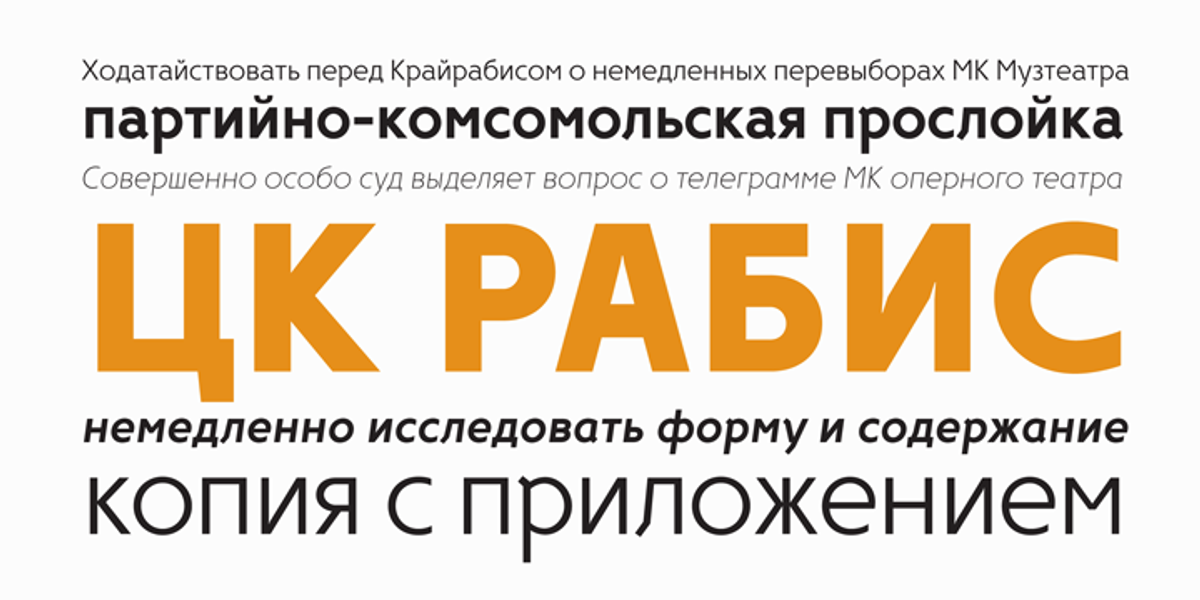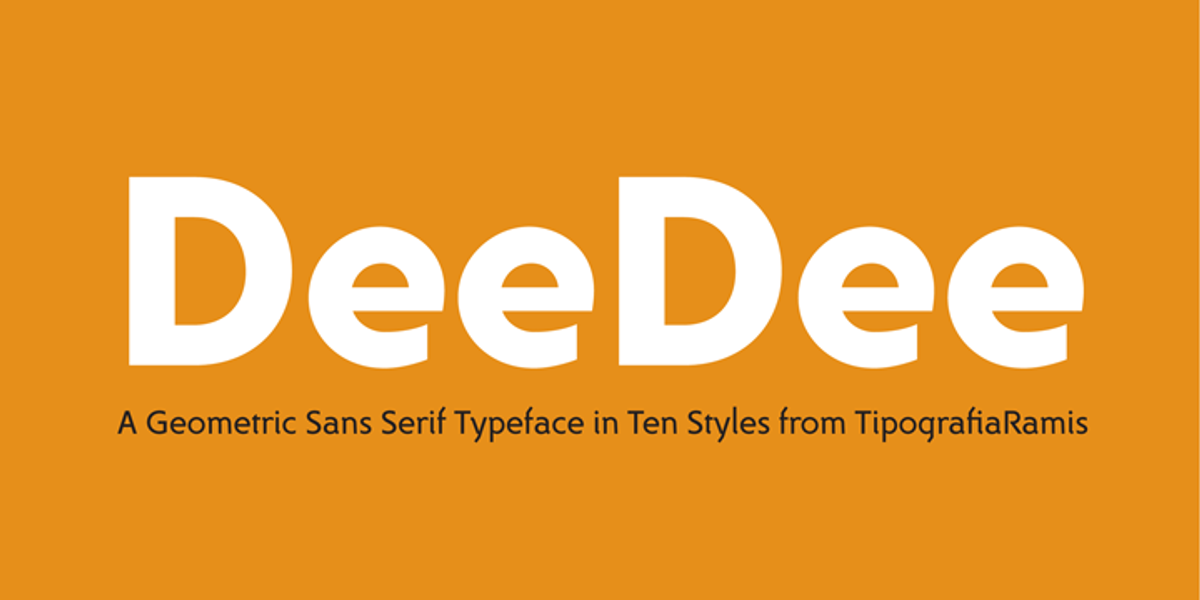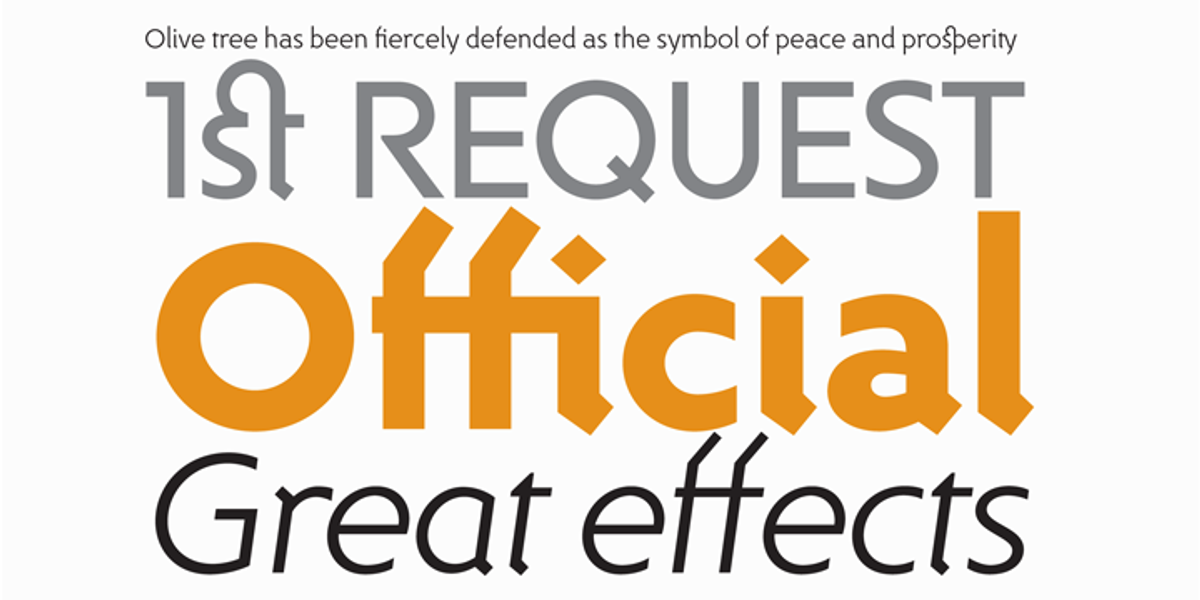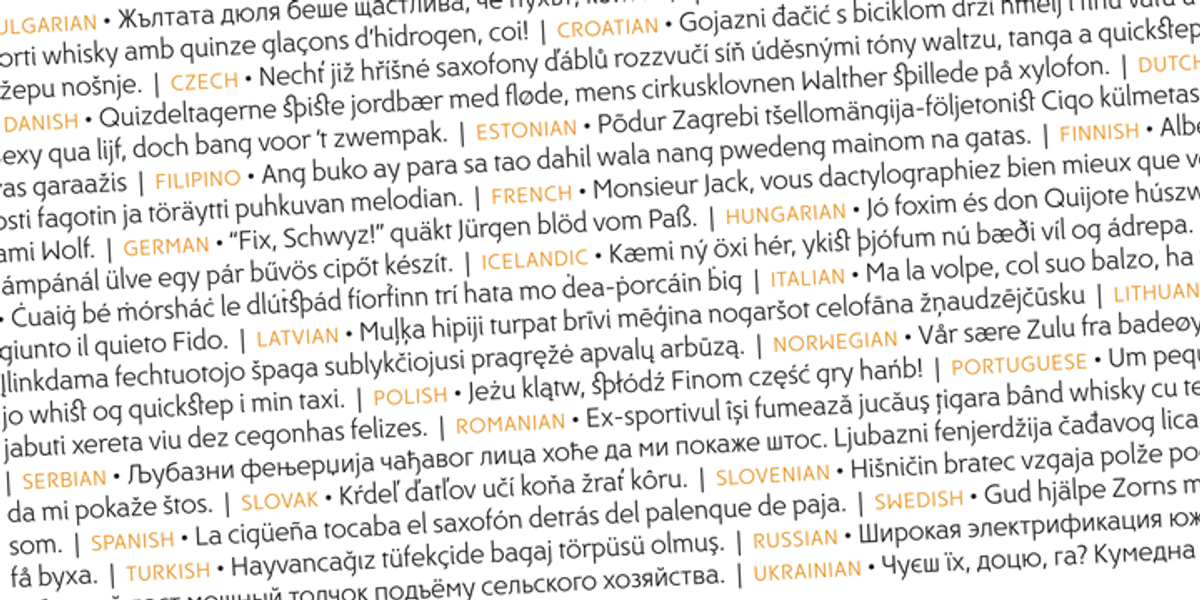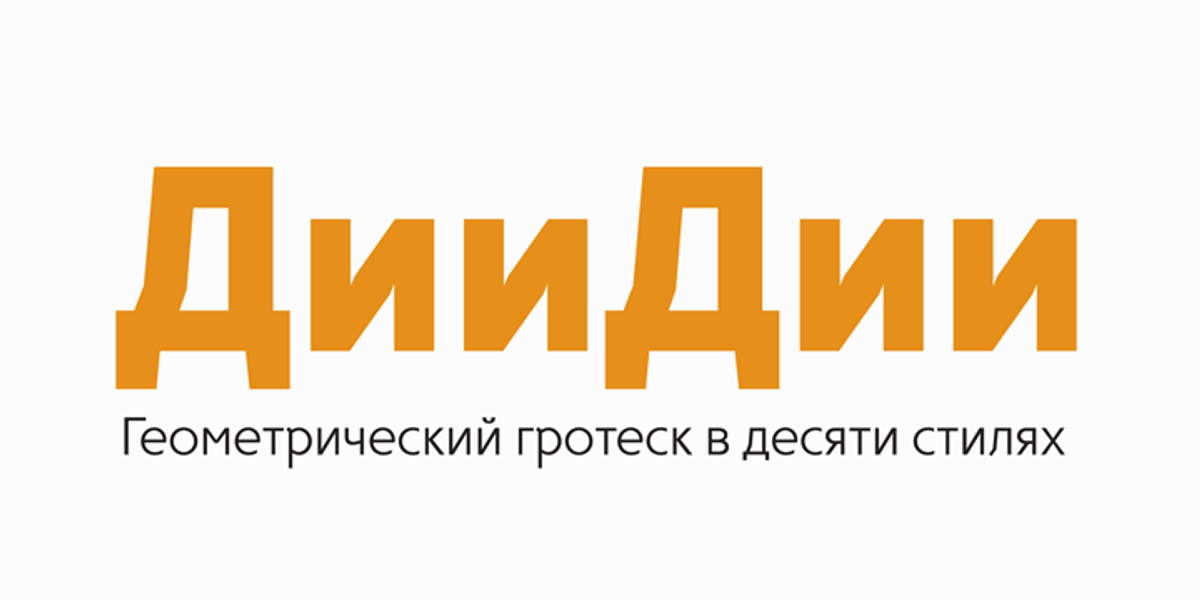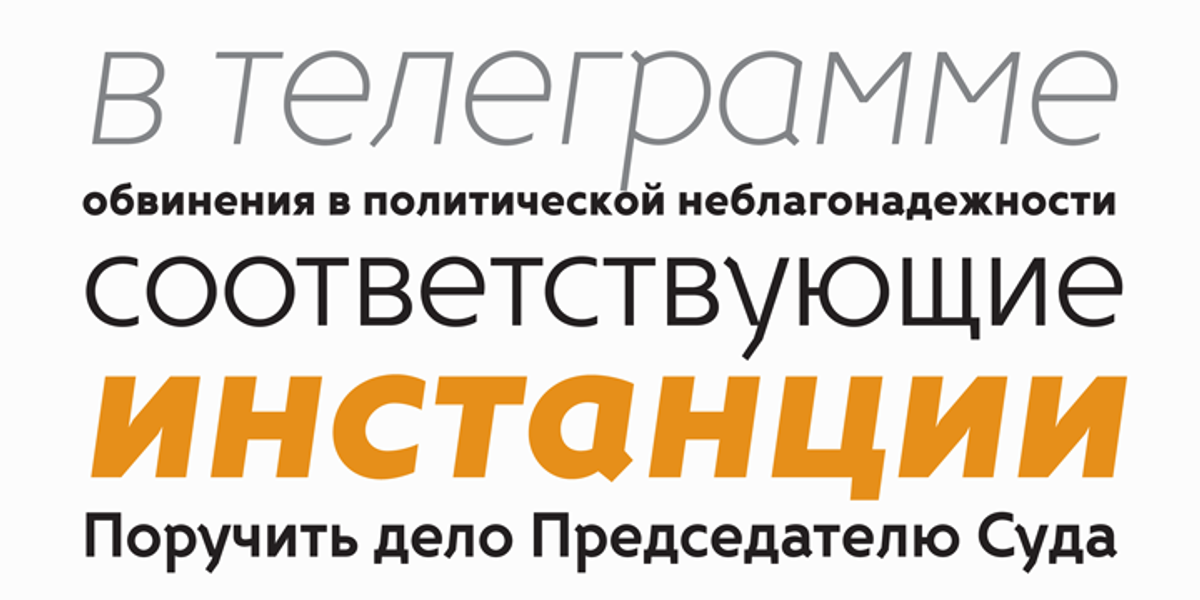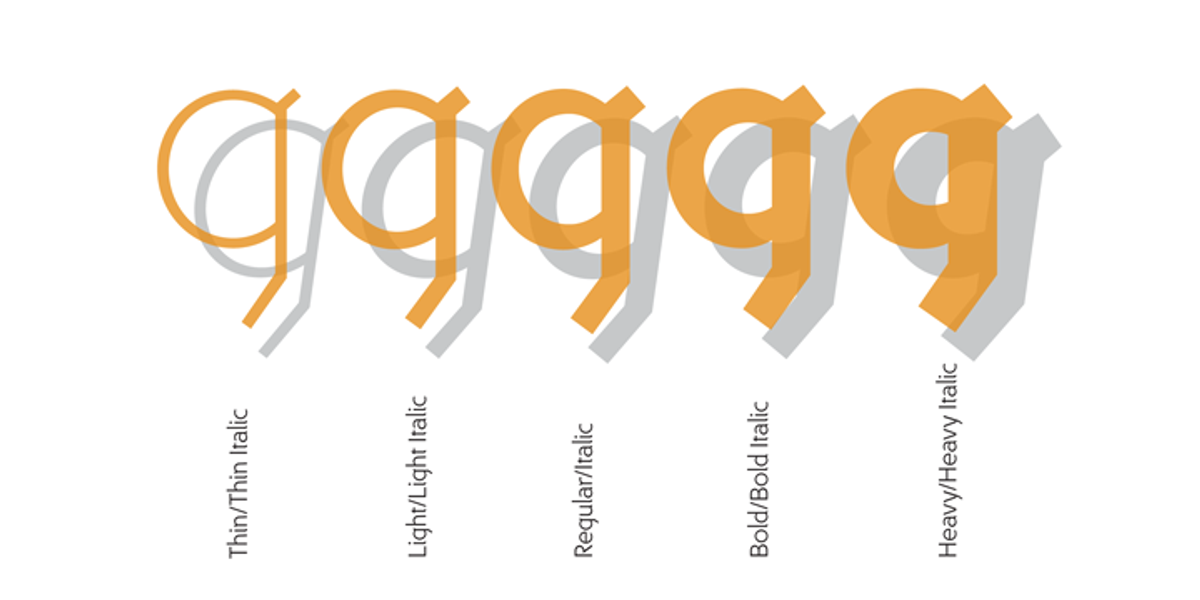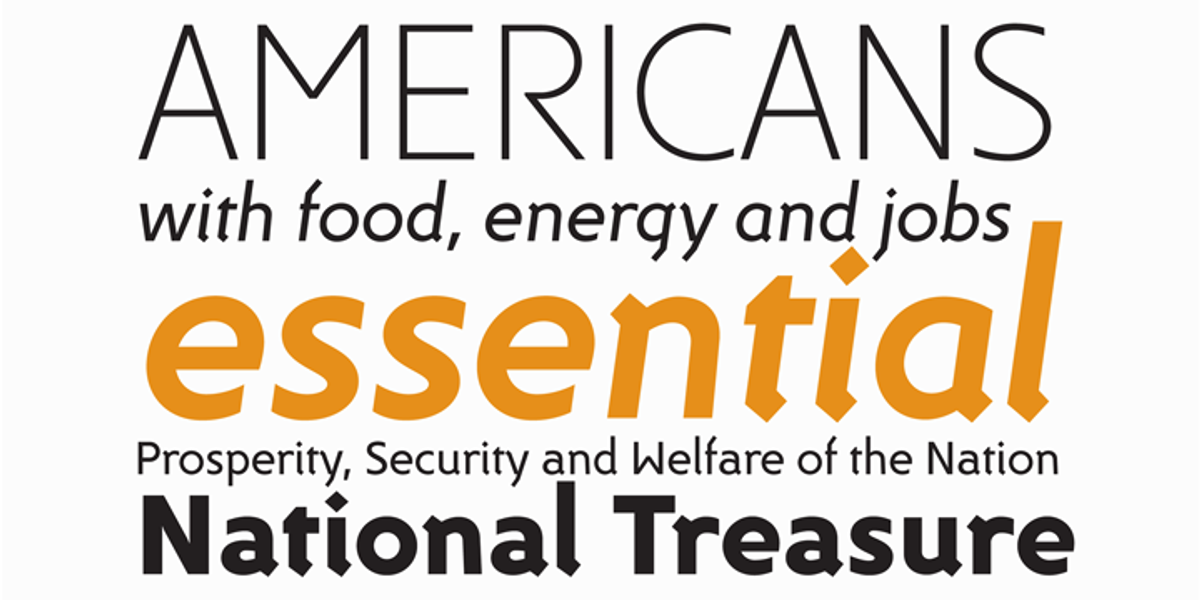
DeeDee
DeeDee is a modern geometric sans serif typeface with ten styles ranging from thin to heavy, available in both roman and italic. While directly related to the Dina typeface family, DeeDee features refined glyph shapes and extended language support, including Cyrillic. Its versatility allows for use in both display sizes like logos and posters, as well as legible body text paragraphs.